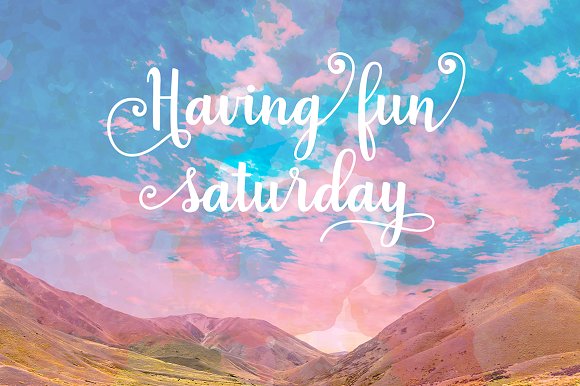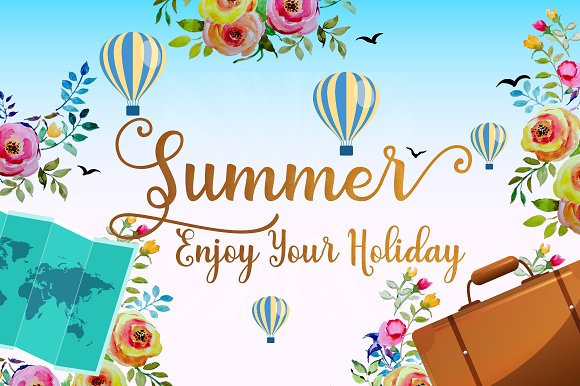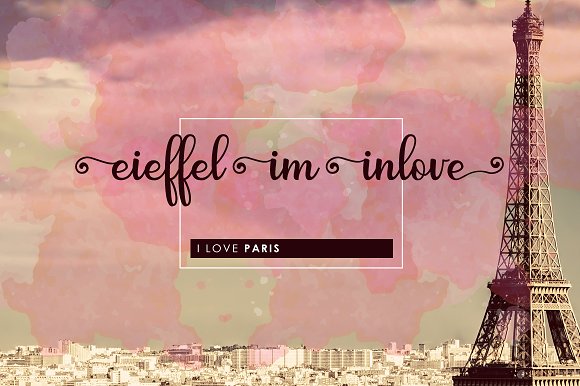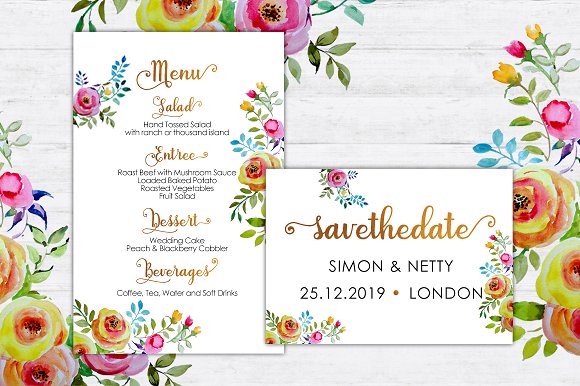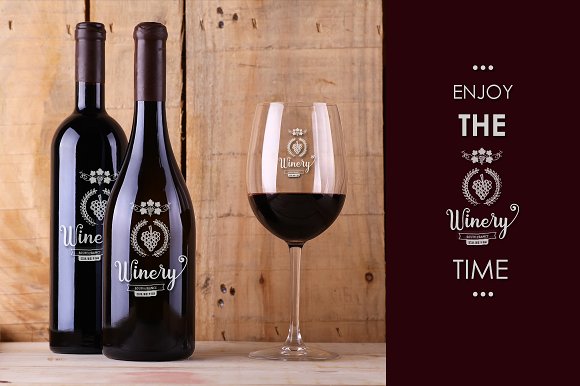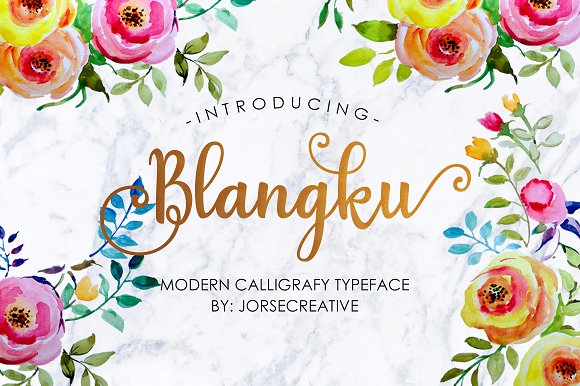
Introducing Blangku Font: Elevate Your Designs with Fluid Calligraphy
Are you tired of using the same old fonts in your designs? Look no further than Blangku Font, a hand-drawn typeface created by Jorsecreative that is sure to take your work to the next level. With its unique fluid calligraphy style, Blangku is perfect for modern designs that require a touch of elegance and sophistication.
The Story Behind Blangku Font
Blangku Font is the brainchild of Jorsecreative, a talented designer with a passion for typography. The font was carefully crafted to provide a distinctive and versatile typeface that can be used in a variety of design applications. Whether you’re working on a logo, brochure, or website, Blangku Font is sure to make a lasting impression.
Key Features of Blangku Font
So, what sets Blangku Font apart from other typefaces? Here are just a few of its key features:
- Unique Fluid Calligraphy Style: Blangku Font boasts a beautiful, fluid calligraphy style that adds a touch of elegance to any design.
- 469 Glyphs and Alternate Characters: With a vast range of glyphs and alternate characters, Blangku Font provides endless possibilities for creative expression.
- Hand-Drawn: Each letter and character in Blangku Font was carefully hand-drawn to ensure a unique and personal touch.
- Modern Design: Blangku Font is perfect for modern designs that require a fresh and contemporary look.
Why Choose Blangku Font?
With so many fonts available, why should you choose Blangku Font for your next design project? Here are just a few compelling reasons:
- Versatility: Blangku Font can be used in a wide range of design applications, from logos and brochures to websites and social media graphics.
- Creativity: With 469 glyphs and alternate characters, Blangku Font provides endless opportunities for creative expression.
- Elegance: The fluid calligraphy style of Blangku Font adds a touch of elegance and sophistication to any design.
- Uniqueness: Blangku Font is a one-of-a-kind typeface that will set your designs apart from the crowd.
How to Use Blangku Font in Your Designs
Ready to start using Blangku Font in your designs? Here are a few tips to get you started:
- Experiment with Different Glyphs: Don’t be afraid to try out different glyphs and alternate characters to add some variety to your designs.
- Pair with Other Fonts: Blangku Font pairs well with other fonts, so feel free to experiment with different combinations.
- Use in Digital and Print Designs: Blangku Font is perfect for both digital and print designs, from websites and social media graphics to logos and brochures.
In conclusion, Blangku Font is a unique and versatile typeface that is sure to elevate your designs to the next level. With its fluid calligraphy style, 469 glyphs and alternate characters, and hand-drawn design, Blangku Font is perfect for modern designs that require a touch of elegance and sophistication. So why wait? Download Blangku Font today and start creating stunning designs that will leave a lasting impression.
Here are a few additional tips for designers and crafters who want to get the most out of Blangku Font:
- Use in Hand Lettering and Calligraphy: Blangku Font is perfect for hand lettering and calligraphy projects, from wedding invitations to event signage.
- Experiment with Different Colors: Don’t be afraid to try out different colors and textures to add some extra flair to your designs.